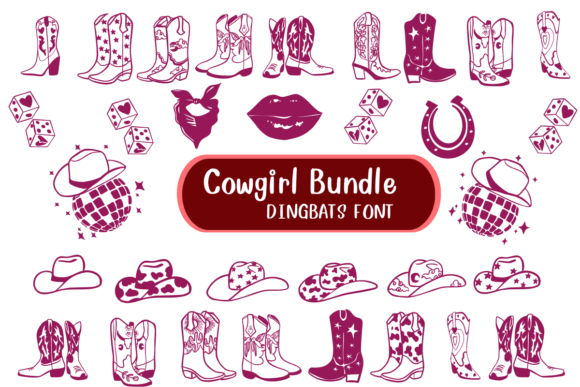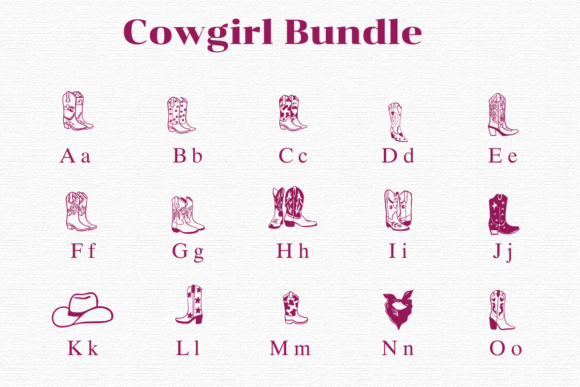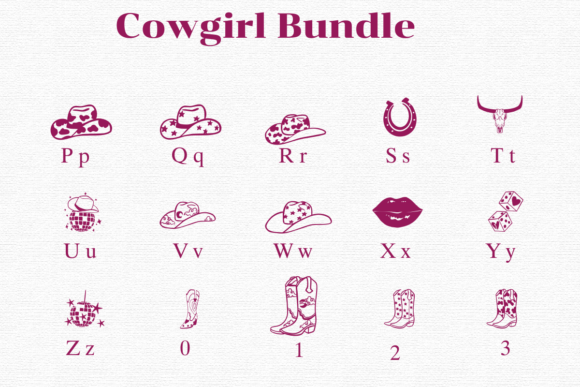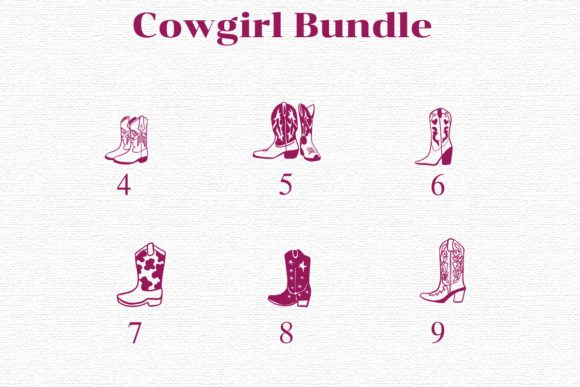
Cowgirl Bundle Font
About the Cowgirl Bundle Font
Step up your design game with Cowgirl Bundle Font, a font that exudes confidence and style. The Cowgirl Bundle is a fun and playful dingbat font. It features cute images of cowgirl boots and hats, perfect for adding a Western flair to your designs. This font is great for decorating invitations, posters, or any project that needs a touch of cowgirl style.
This playful design excels in projects requiring a touch of whimsical Western charm. Ideal applications include branding for boutiques, children’s products, or event invitations with a country theme. It also works well on posters, social media graphics, and packaging where a small decorative element adds personality.
However, its illustrative nature makes it unsuitable for body text or UI elements. The Cowgirl Bundle’s low readability limits its use in longer text blocks.
Pair it with a clean sans-serif like Open Sans for readability in supporting text, or a more rustic serif font like Playfair Display for a sophisticated contrast. For a more modern feel, consider pairing it with a geometric sans-serif like Montserrat. This will keep the overall design feeling balanced, and prevent the design from appearing cluttered or overly busy.
Cowgirl Bundle Font Usage Examples
Cowgirl Bundle Font Example